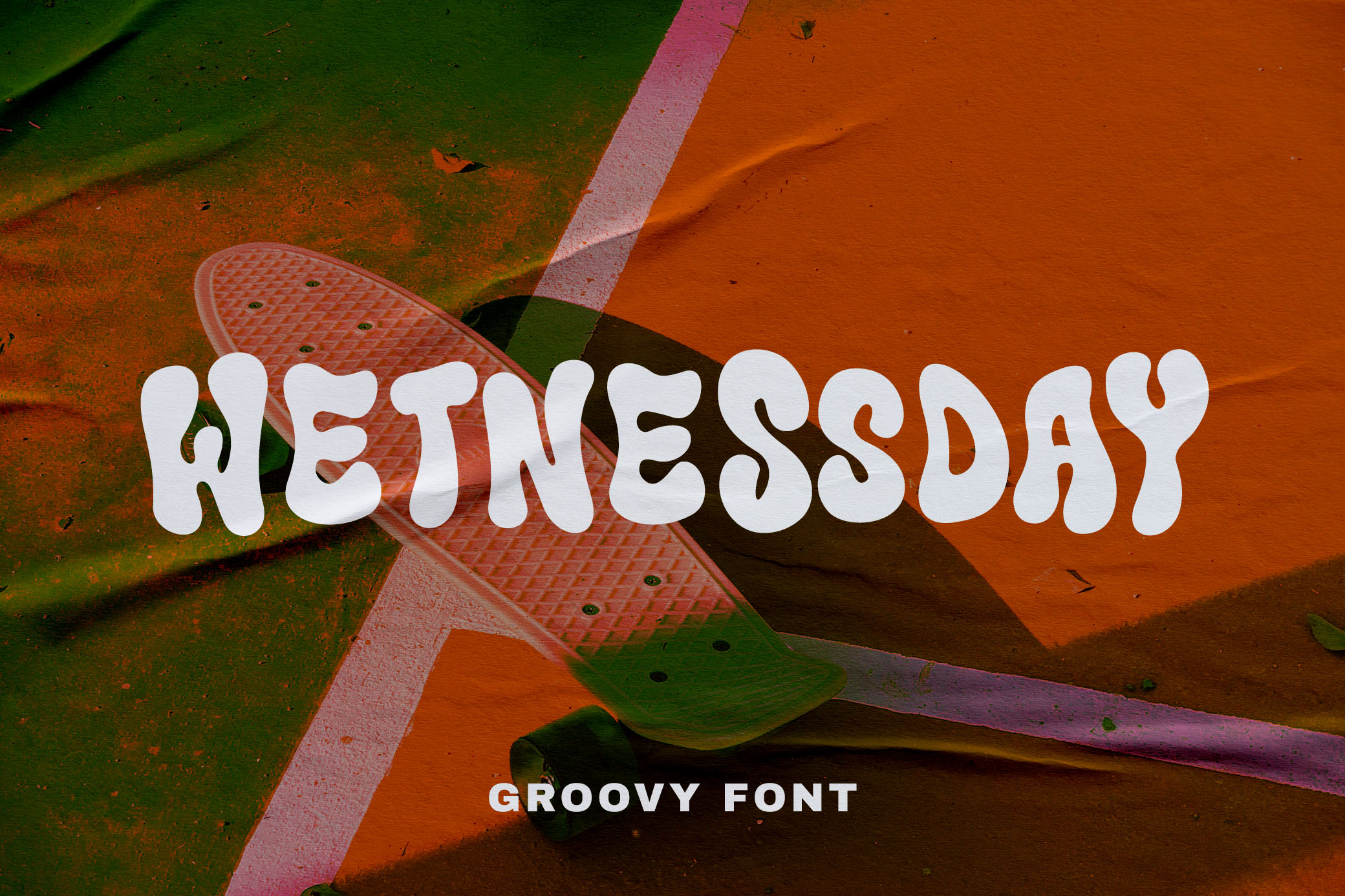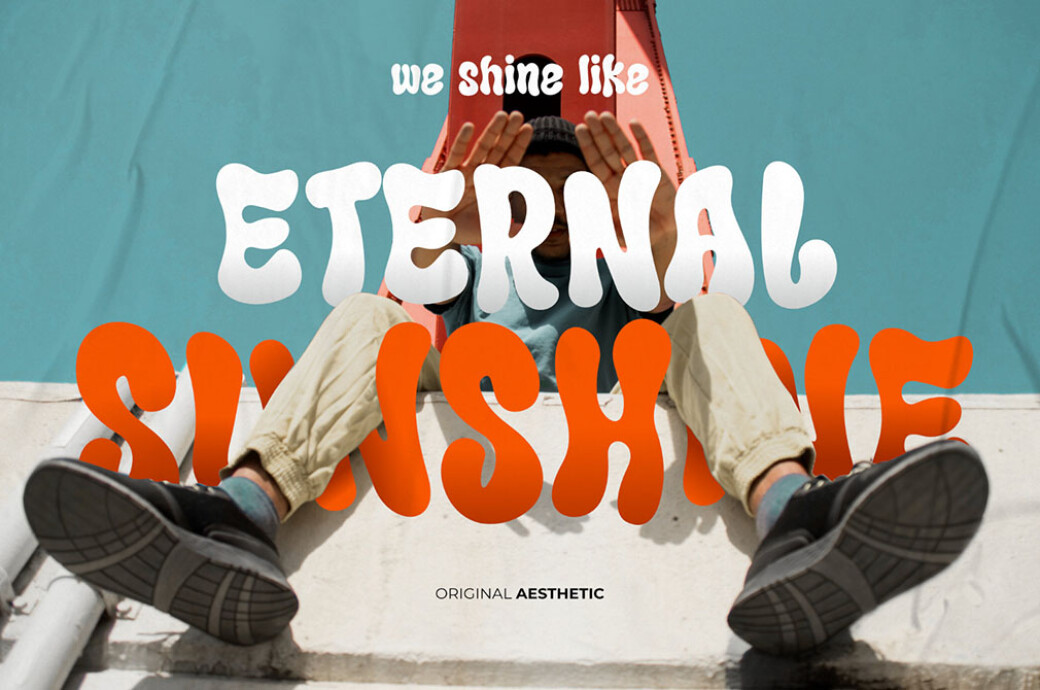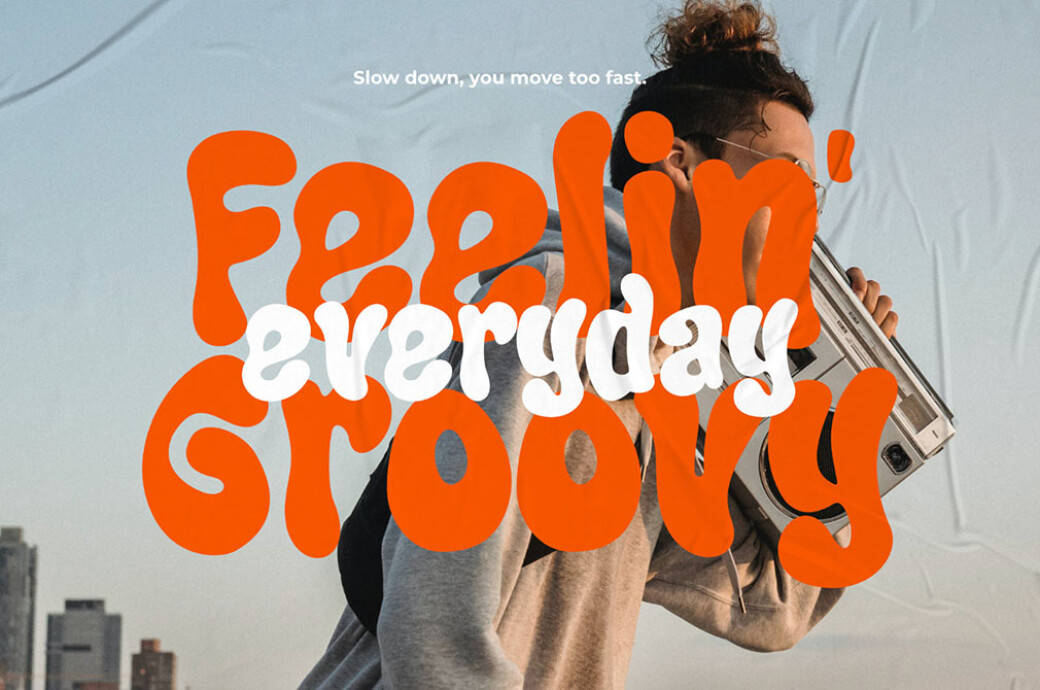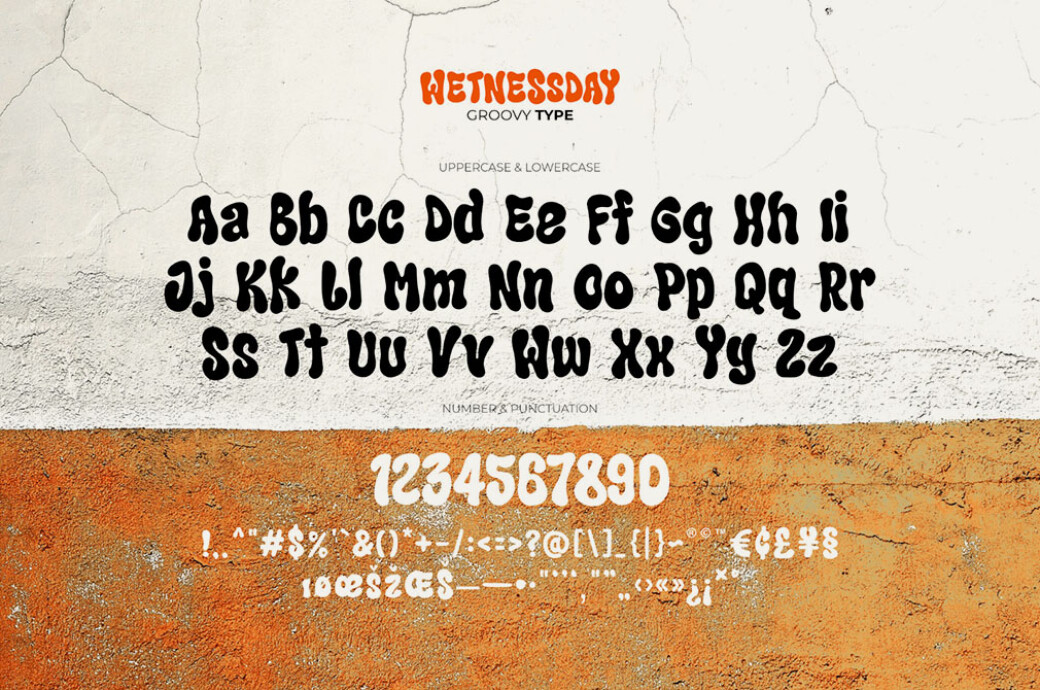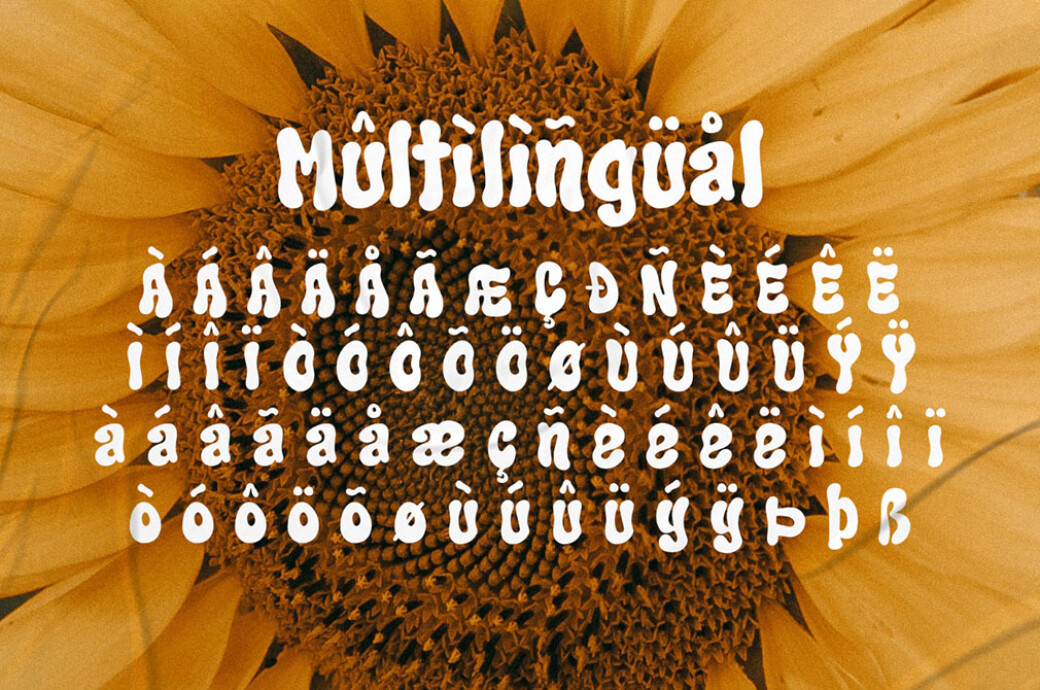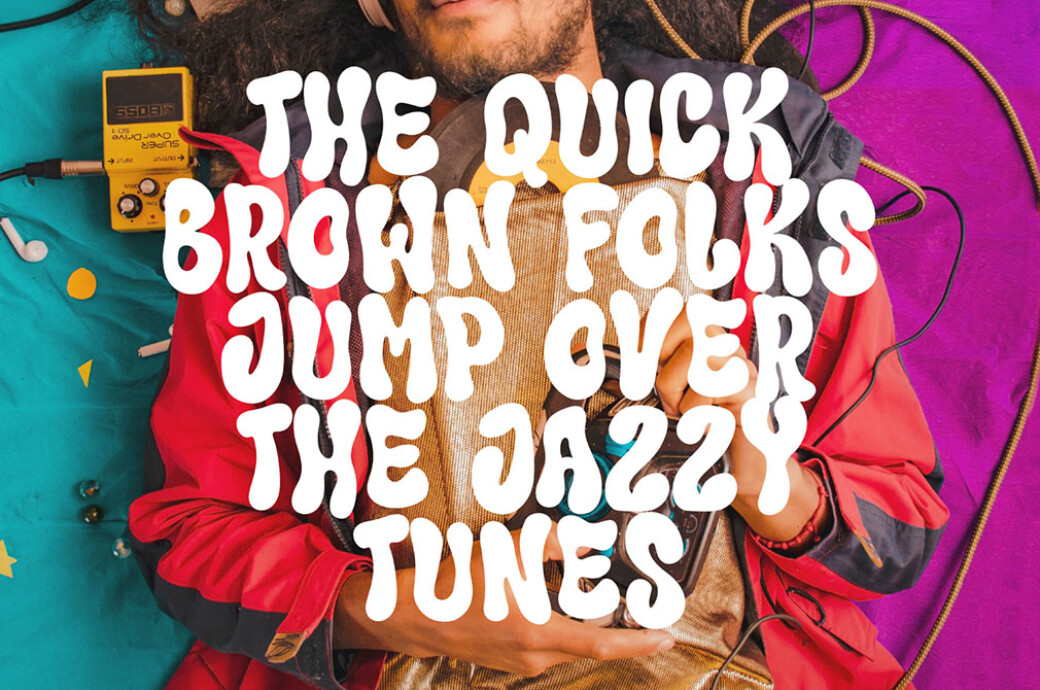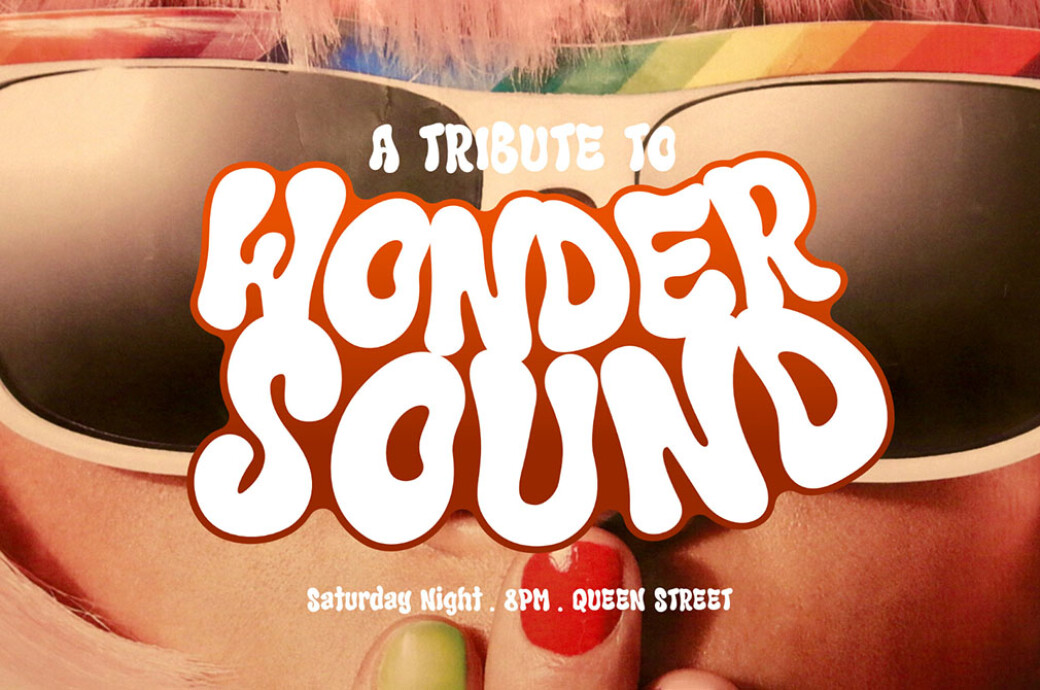
Wetnessday Groovy Font
Monday, Tuesday, Wetnessday! Whatever Norse god this day is named after, the font stands for the pure grooviness of the seventies.Have you noticed the rise of psychedelic typography? It's been with us for so long, but now we've got more and more of it, and every typeface sends powerful beams of hippie legacy. Wetnessday is a convincing proof of this. This font brings the best of the 70s aesthetic in every character: uppercase and lowercase letters, numbers, punctuation, bonus ligatures, and multilingual support. We encourage you to use it not just in retro-themed projects but in all kinds of street-style or urban art. Just like in the preview images!